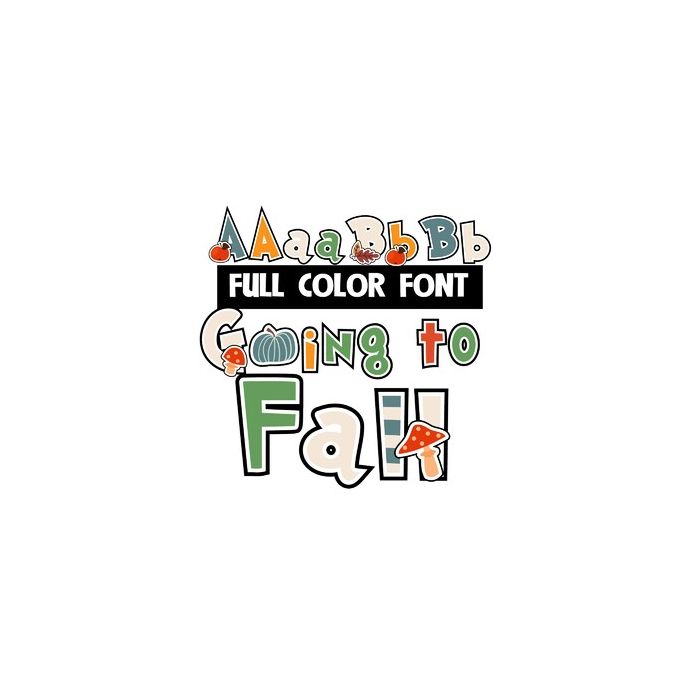
This full-color font features an autumn color palette, mushrooms, leaves, pumpkins and more. There is an alt case you can access through your system's glyph map. This font works best for titles, displays, posters and more. Please note color fonts will show as black in non compatible programs. This font type is compatible with Silhouette Studio.